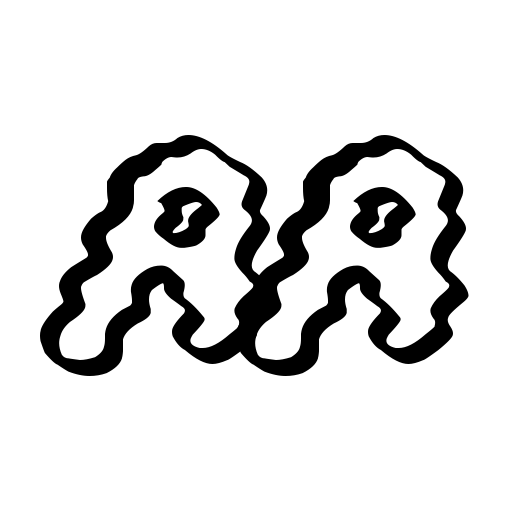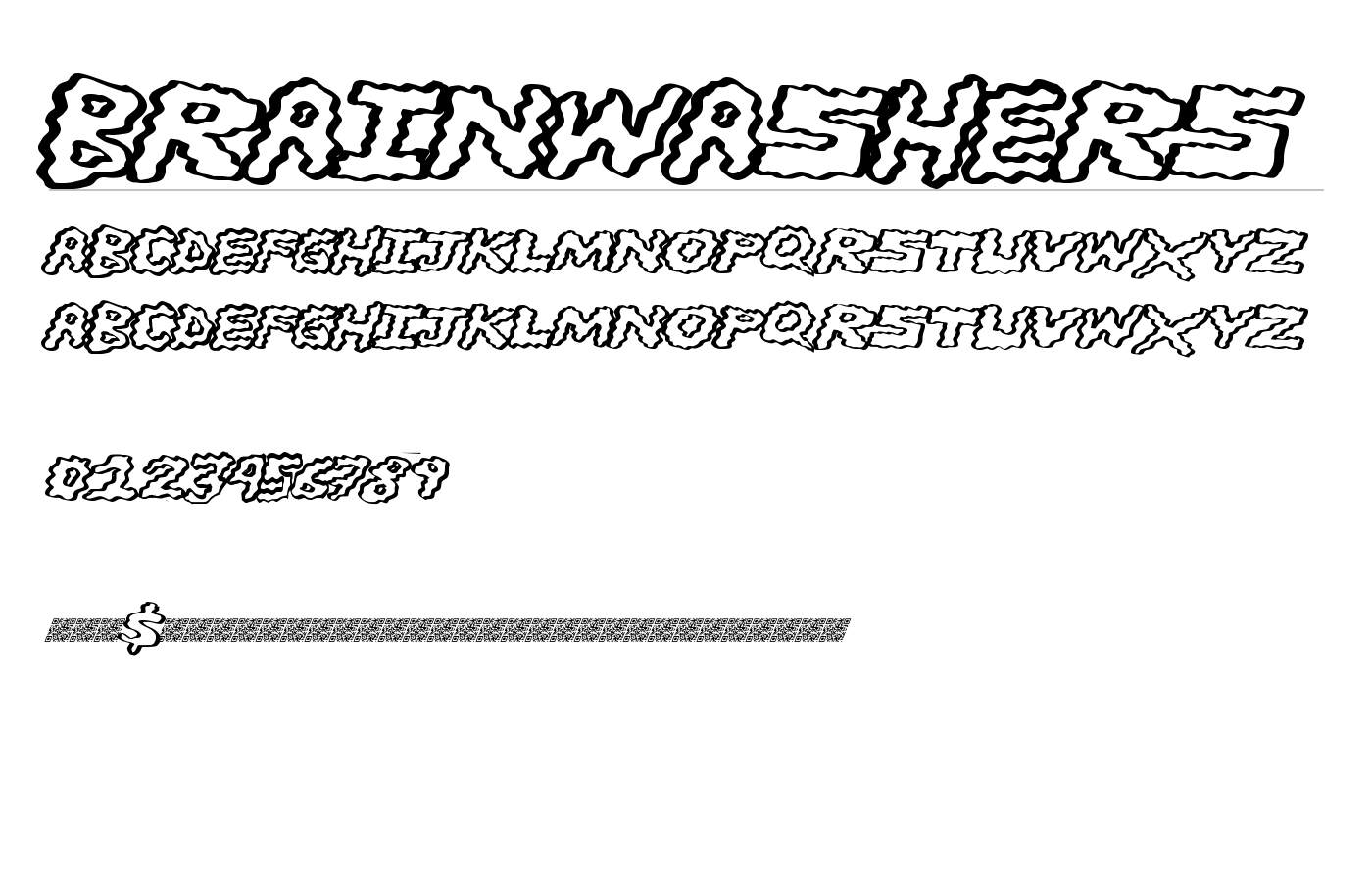
BrainWashers is a bold, playful display font with a wavy, irregular outline that gives it a dynamic and hand-drawn feel. Its unique, distorted letterforms create a fun and energetic vibe, making it perfect for eye-catching uses like posters, logos, and creative branding. This font stands out with a quirky personality that suits youthful, casual, or unconventional designs.
BrainWashers Font
About BrainWashers Font